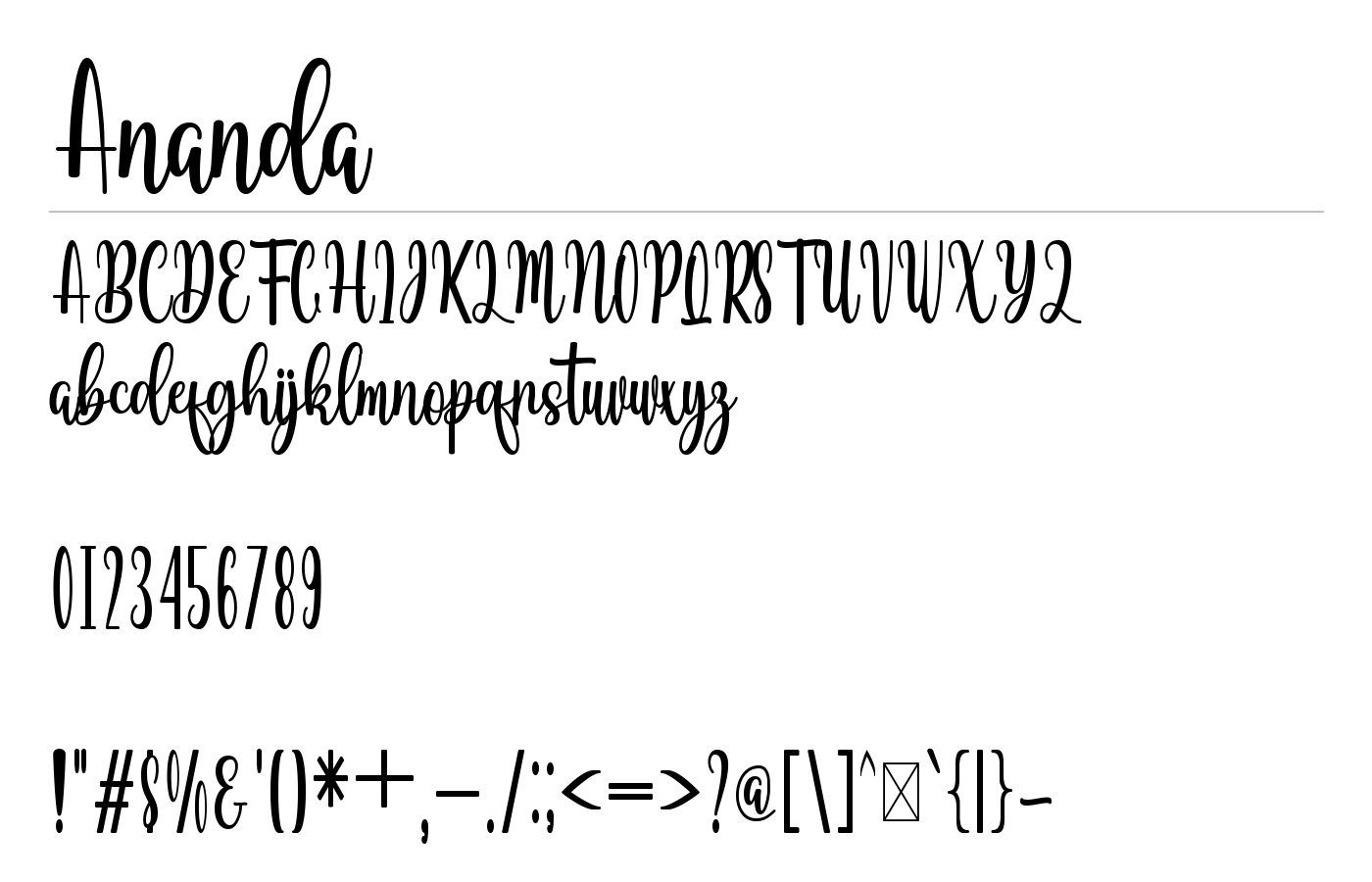
Ananda is a playful and elegant script font with a tall, narrow stature and flowing, hand-drawn letterforms. Its smooth, rounded strokes and tall x-height give it a friendly and approachable feel, making it perfect for creative branding, invitations, and stylish headlines where personality and charm are key. This font works best when you want to convey a modern yet personable tone with a touch of whimsy.
Ananda Font
About Ananda Font